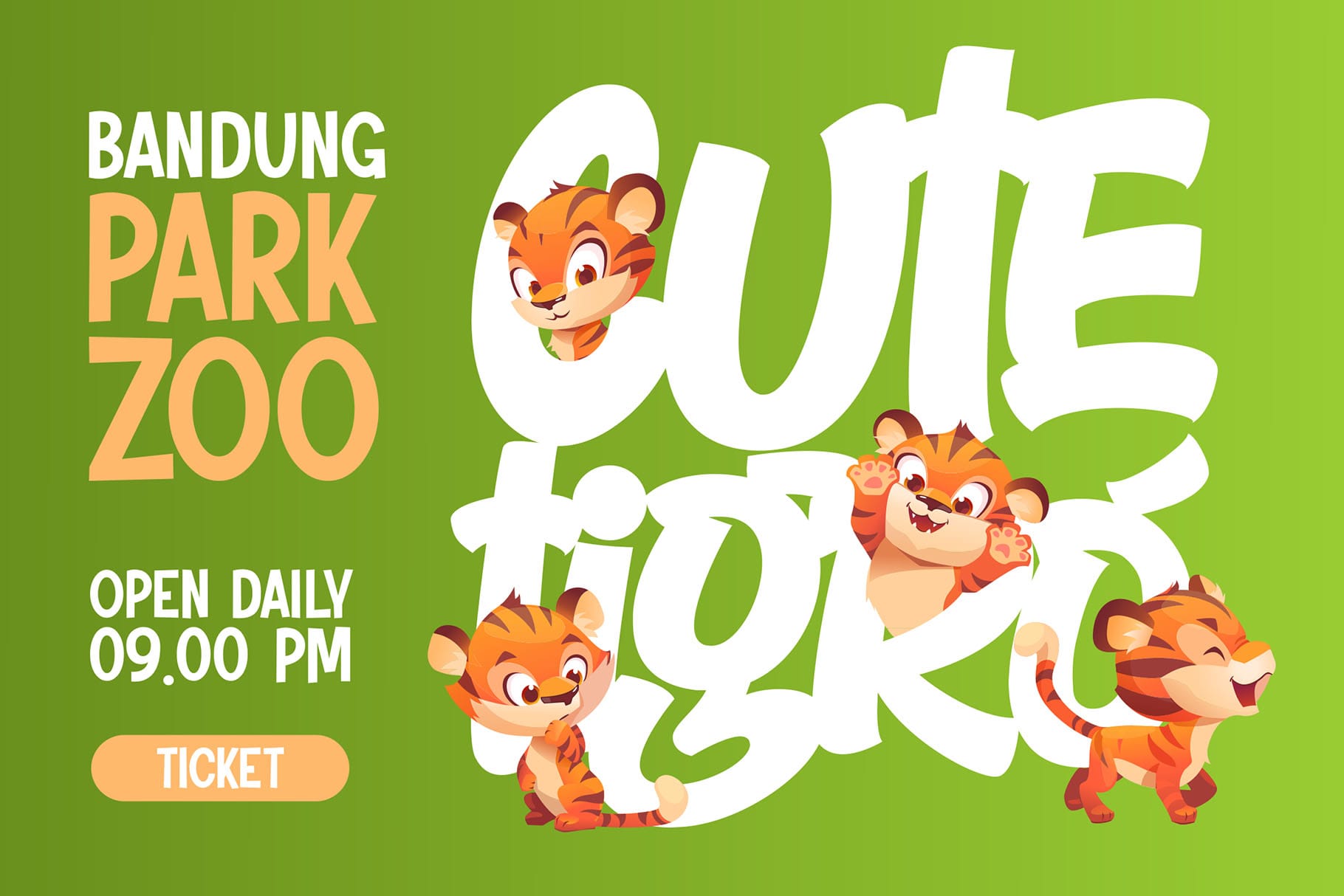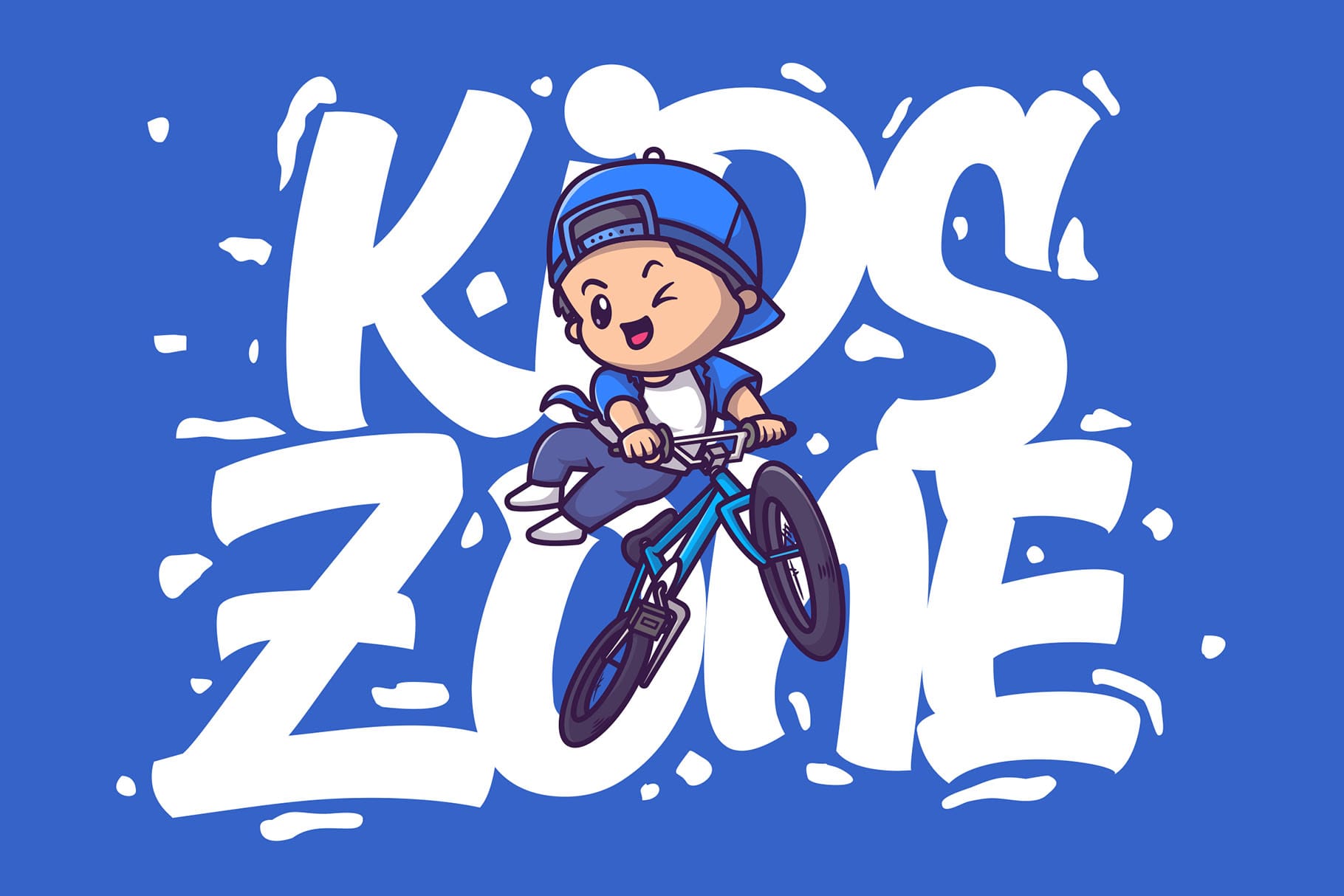
Komica Brought
Say hello to Komica Brought font. Made with love and joy. Comic look, so it will make your design more beautiful, cute, fun, and colorful.
• Uppercase and Lowercase